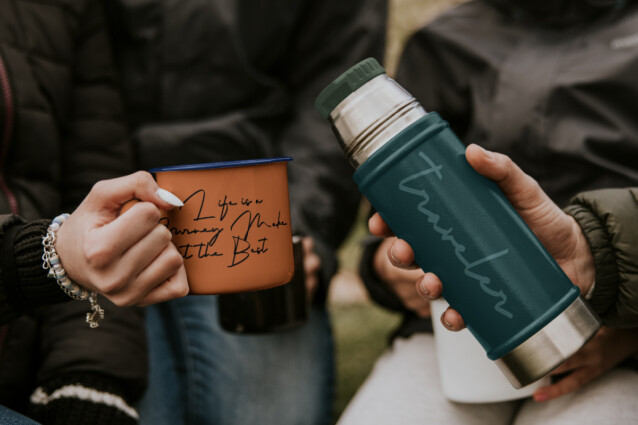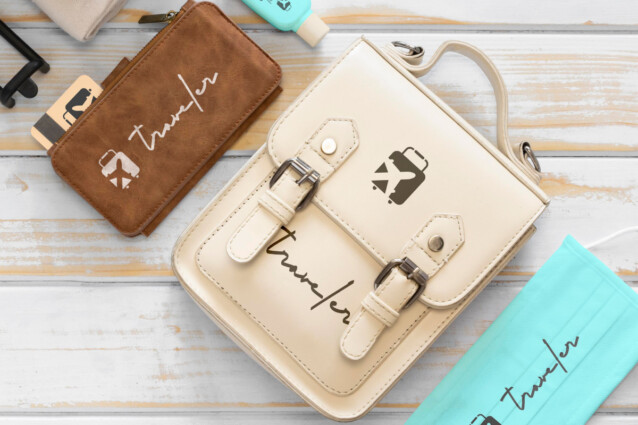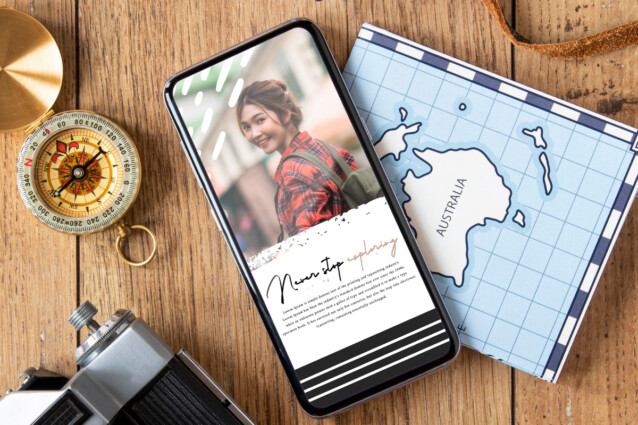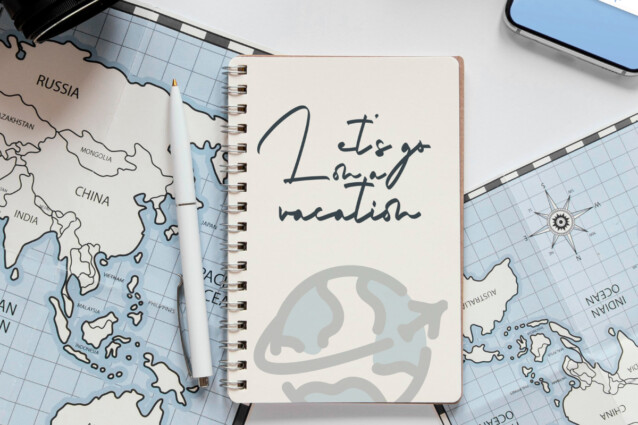
Hard Journey Font
Hard Journey Font is a strong modern handwritten font with signature style that still easy to read and will grab anyone’s attention when added to a design. It will be suitable for any industries, such as art, café, cosmetic, event or wedding organizer, fashion, furniture, hotel and resort, printing, publishing, restaurant, and more!
Hard Journey Font includes full set of Uppercase and Lowercase Basic Characters, Numerals and Punctuation, Ligature, and Alternate characters. Get inspired and use this exclusive font in your various designs, such as brand logo, brochure, business card, custom design, label, poster, product packaging, quote, screen printing, stationery, title, website, and more!